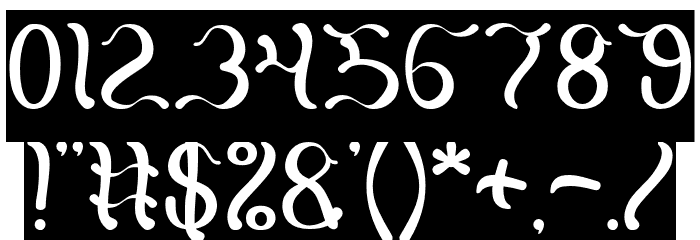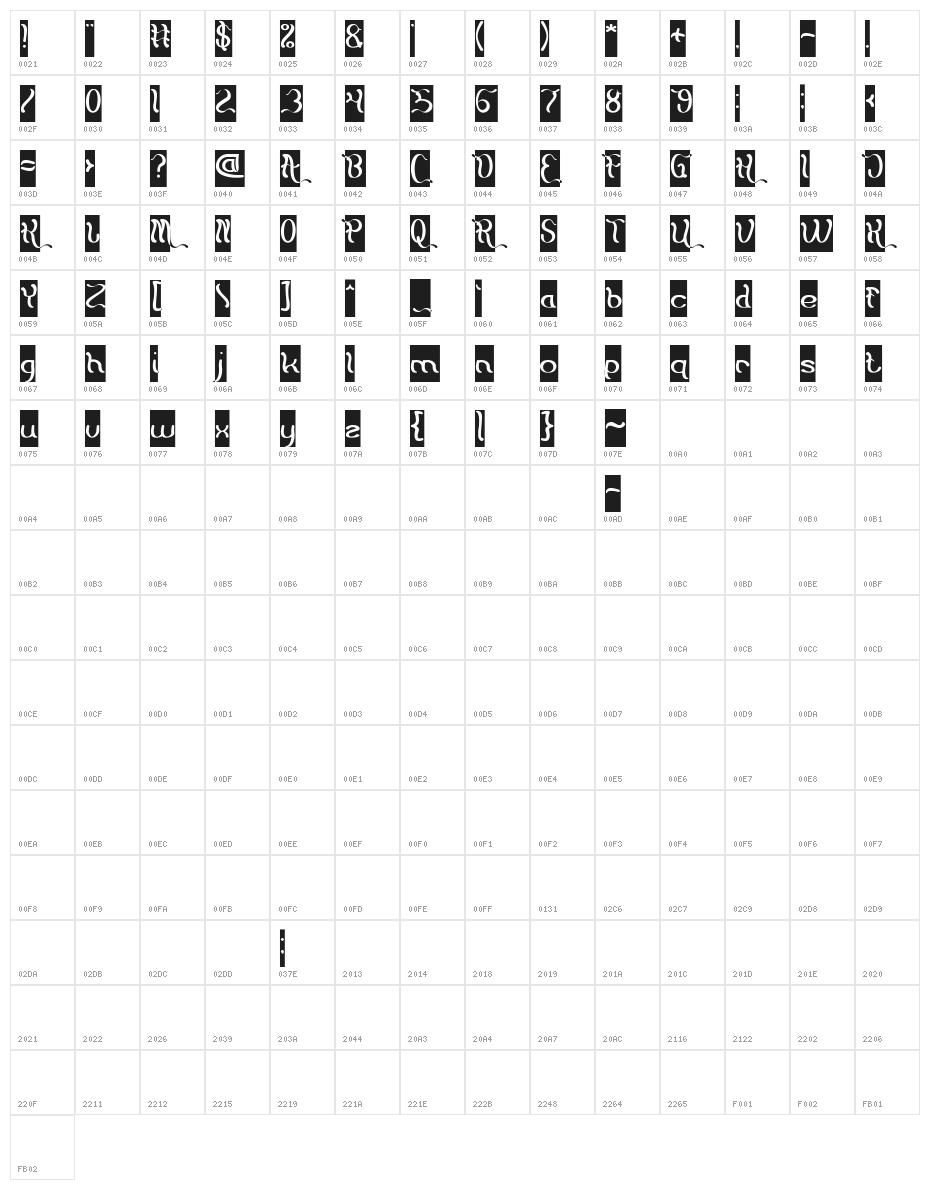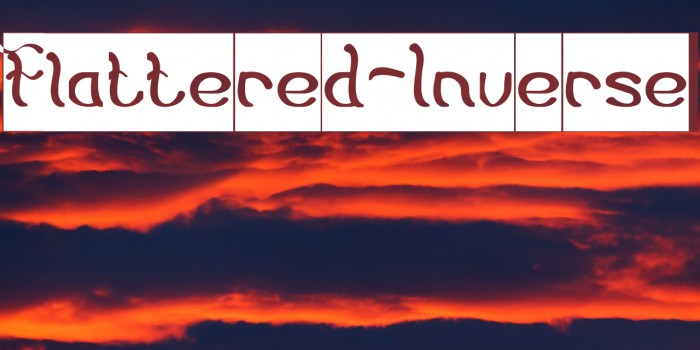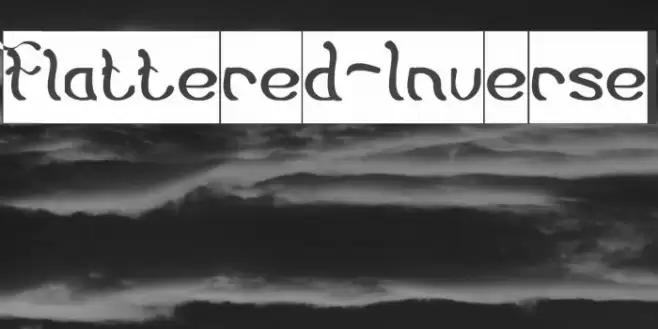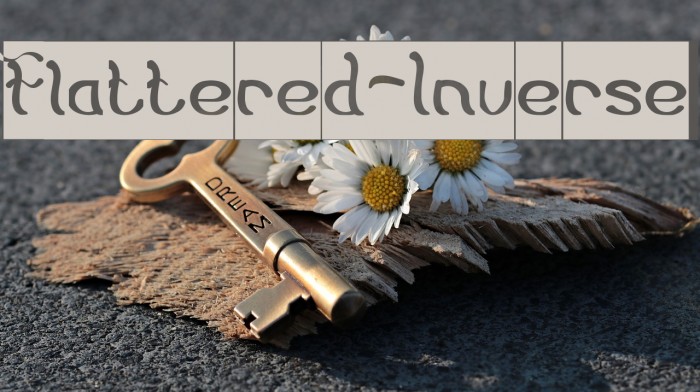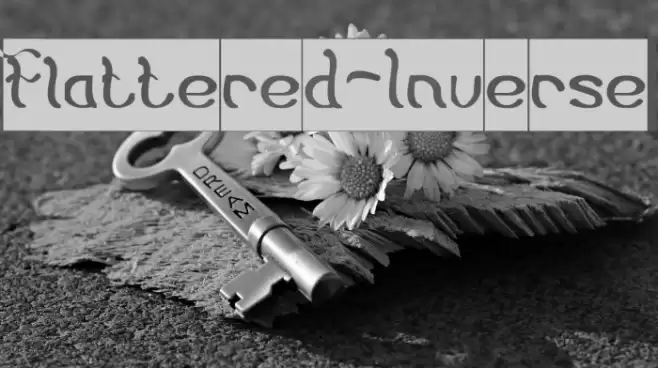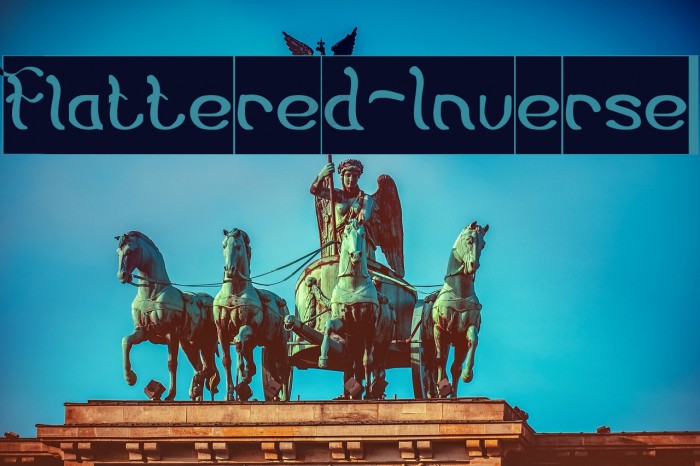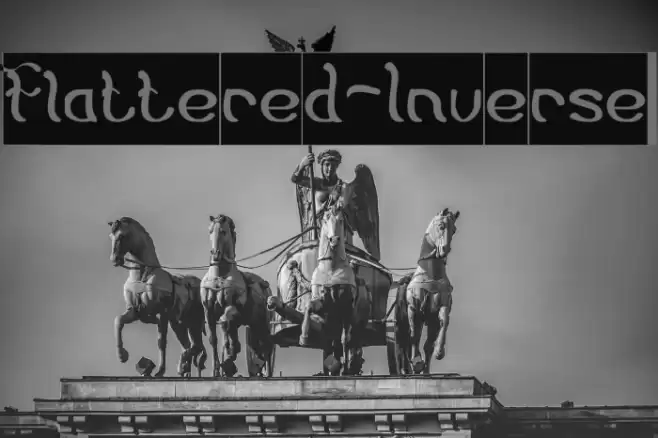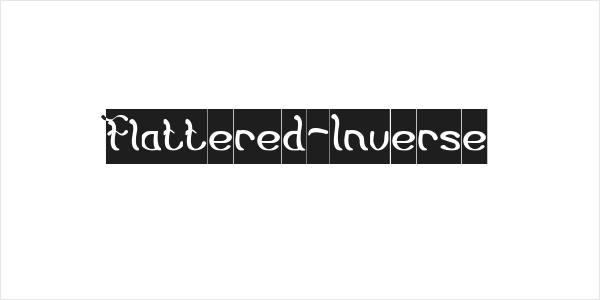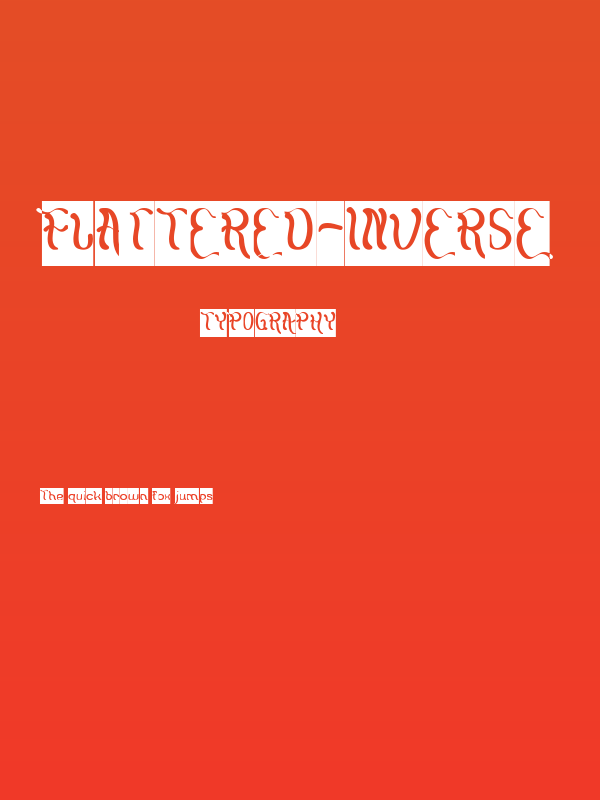
Flattered-Inverse Font
Flattered-Inverse Description
This font features a unique and artistic design with a flowing, cursive style that combines both elegance and a touch of whimsy. The characters are crafted with smooth, sweeping curves and a consistent stroke width, giving it a harmonious and balanced appearance. The uppercase letters exhibit a distinctive flair, with some characters extending slightly beyond the baseline, adding a dynamic and lively feel. The lowercase letters maintain the same fluidity, ensuring readability while retaining the font's artistic essence. The numerals and special characters are designed to complement the alphabet, maintaining the same stylistic elements. This font is ideal for projects that require a creative and eye-catching typeface.